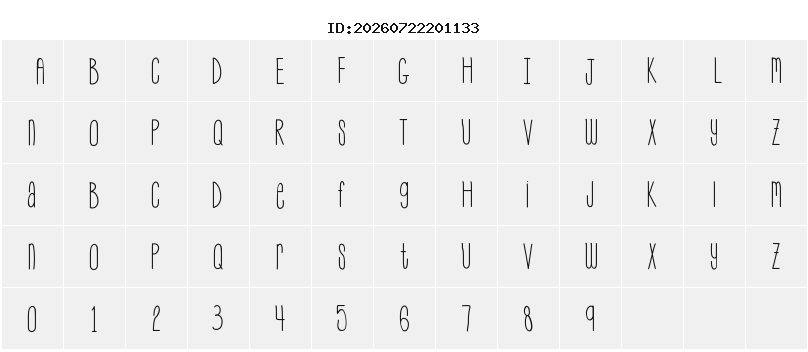
• Font Name: MySkinnyJeans
• Full Font Name: MySkinnyJeans
About MySkinnyJeans.ttf
MySkinnyJeans.ttf is a modern, elegant sans-serif font designed for ultimate readability and visual harmony. Perfect for branding, headlines, web design, and print materials.